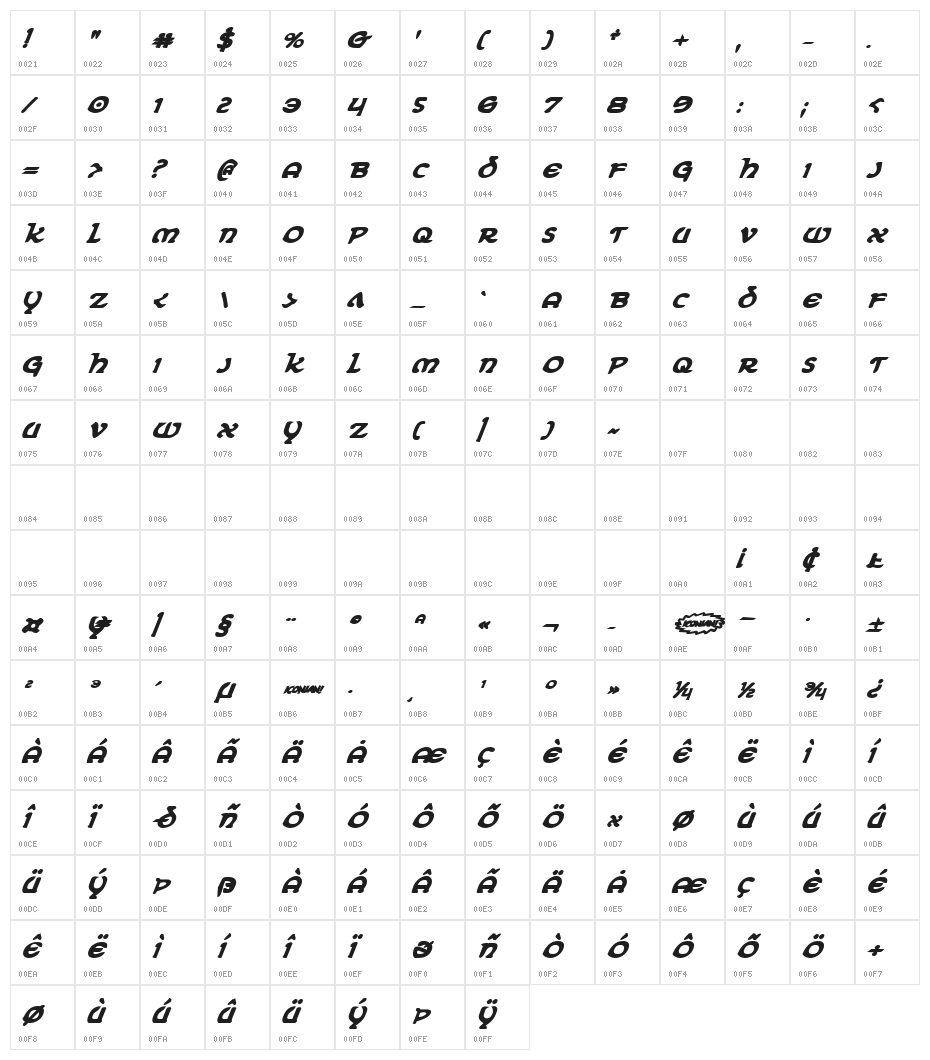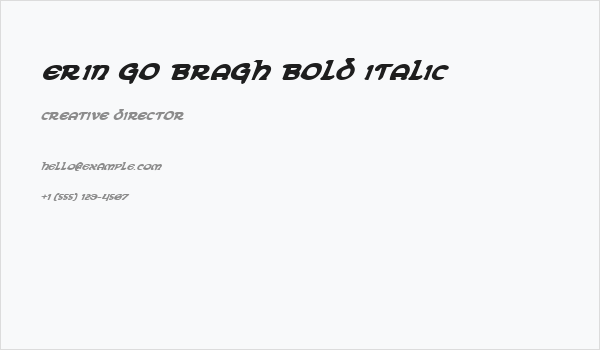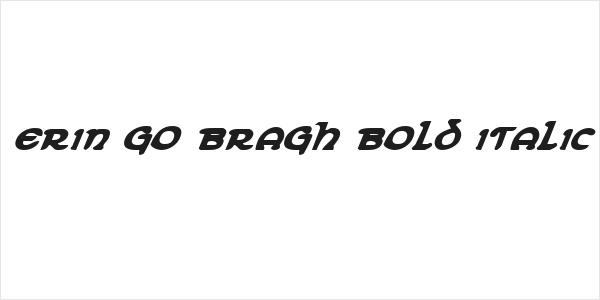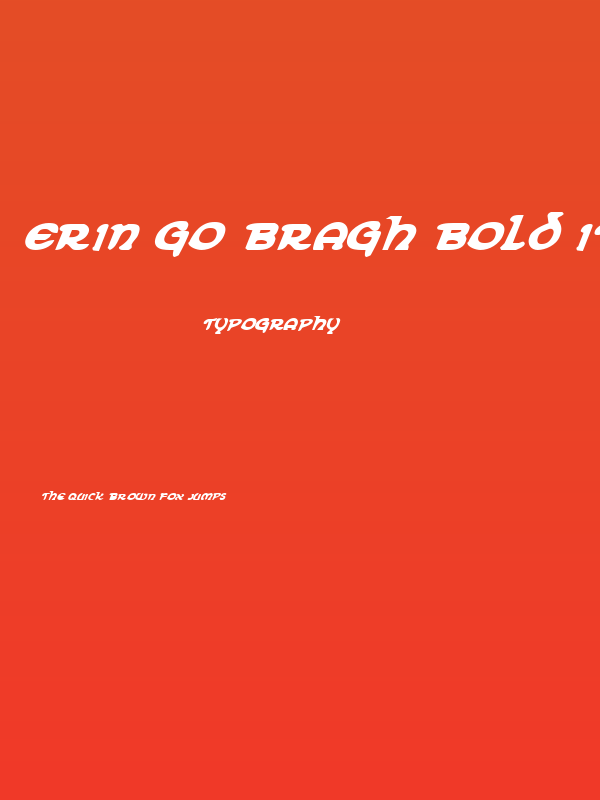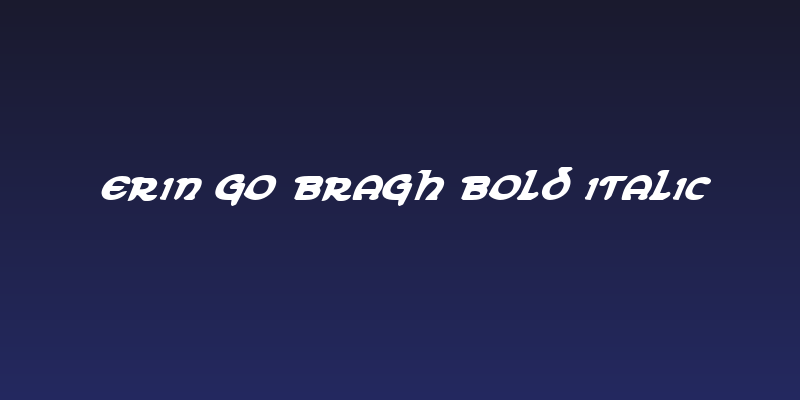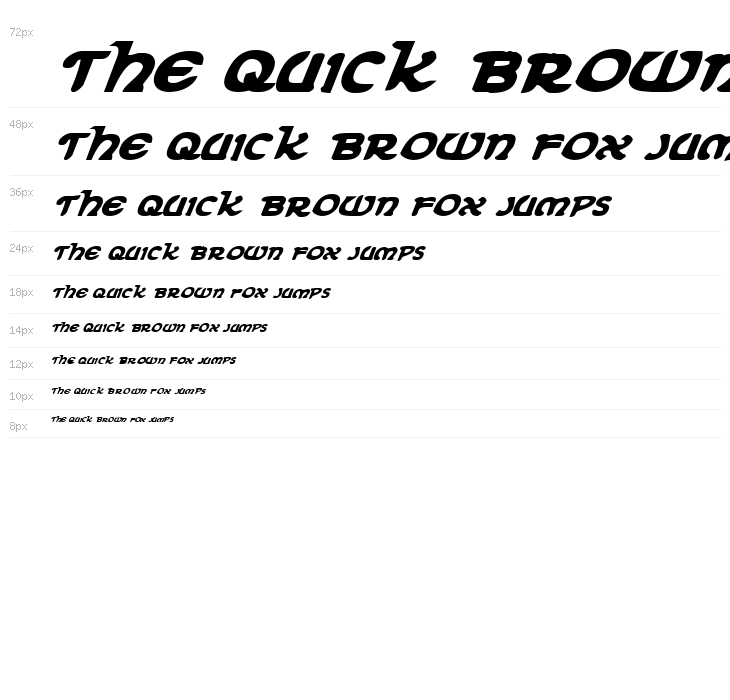
Erin Go Bragh Bold Italic Font
Erin Go Bragh Bold Italic Description
This font features a bold and italicized style with a distinctively playful and energetic character. The letters are rounded and slightly slanted, giving a sense of movement and dynamism. The strokes are thick and consistent, contributing to a strong visual impact. The uppercase and lowercase letters maintain a cohesive design, with unique flourishes on certain characters that add to its decorative appeal. The numerals and special characters are equally bold, ensuring readability and uniformity across different uses.
| Proposed Projects | Ideal for projects that require a lively and bold aesthetic, such as event posters, branding for creative industries, or playful merchandise designs. |